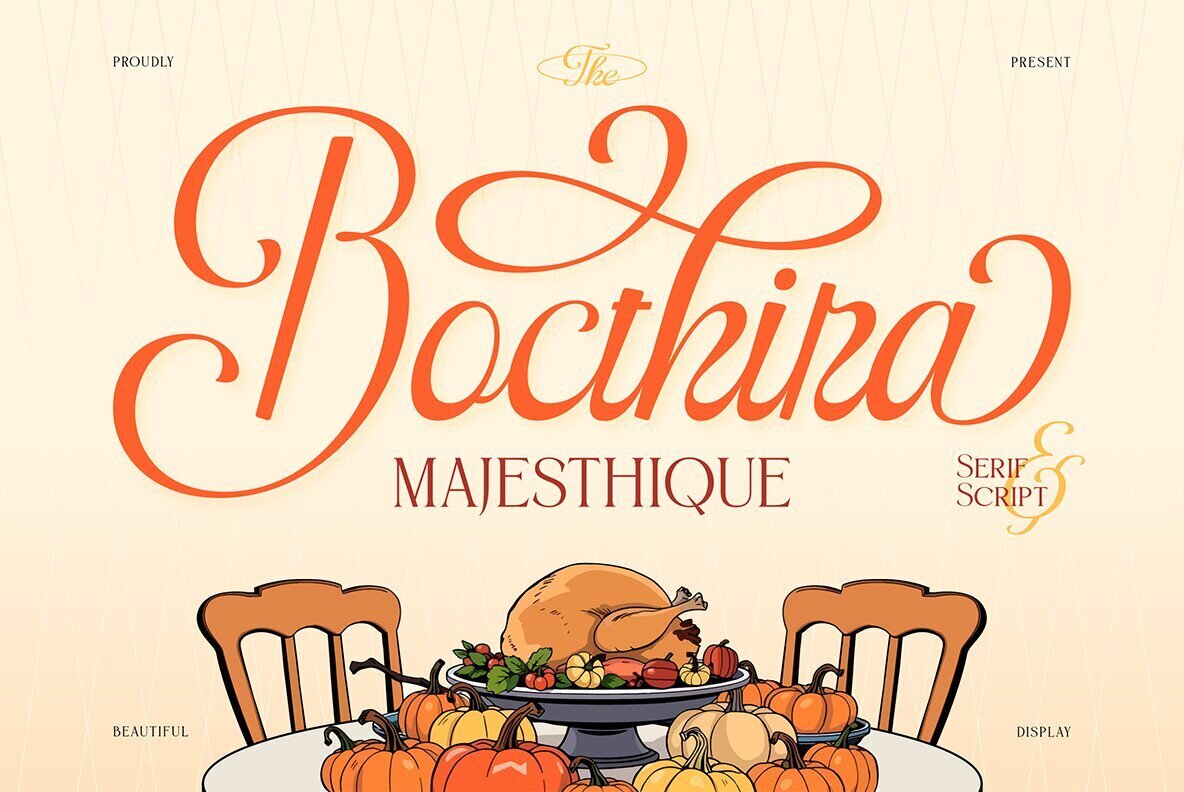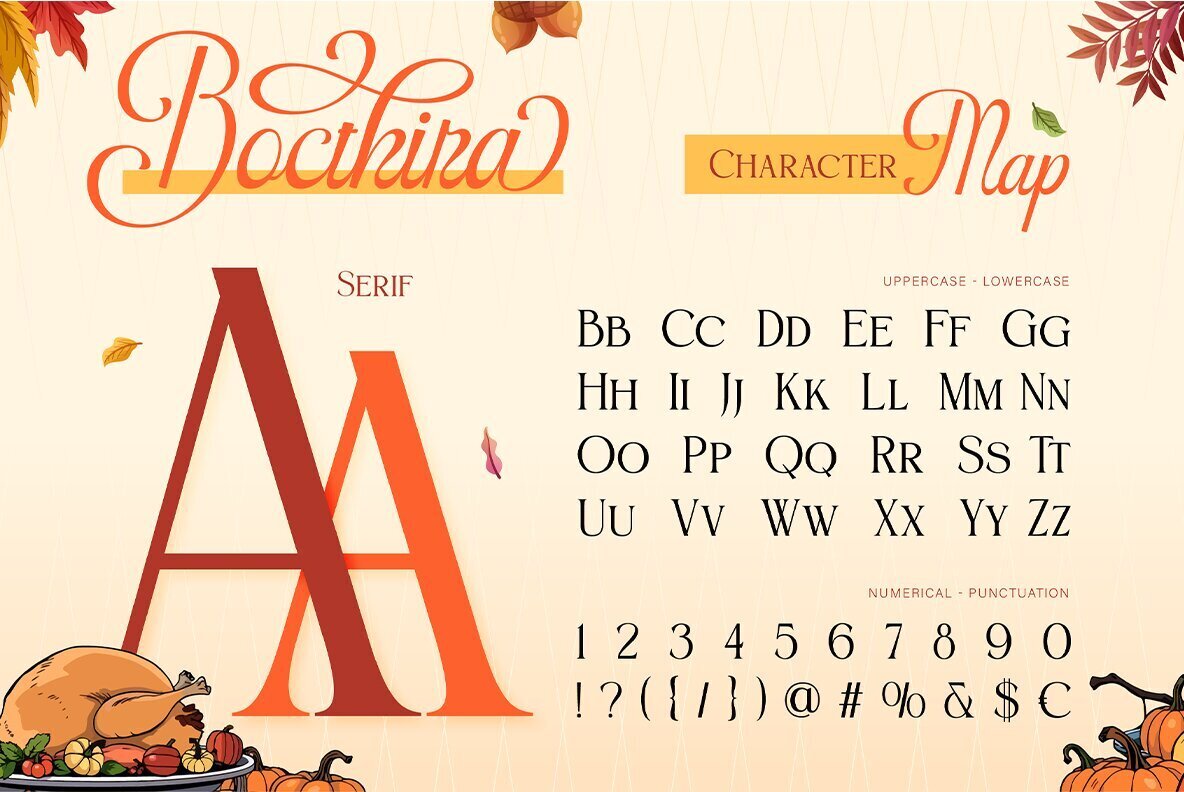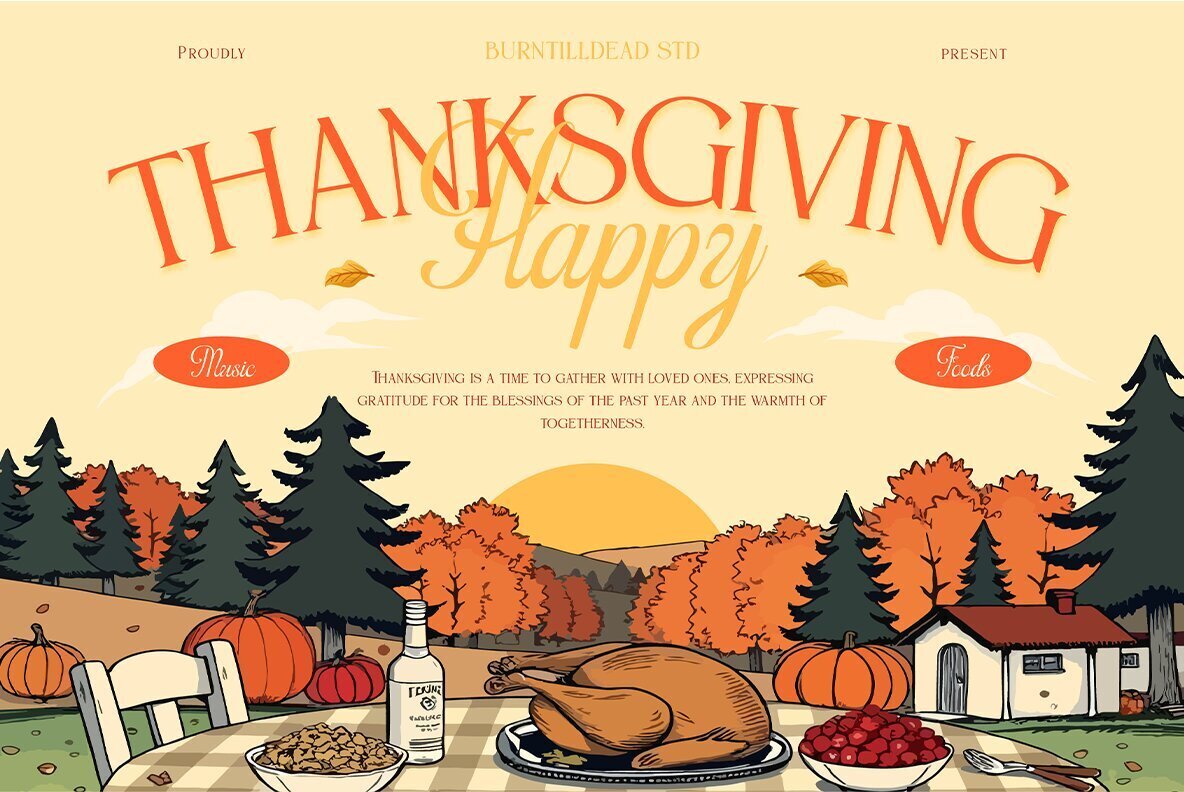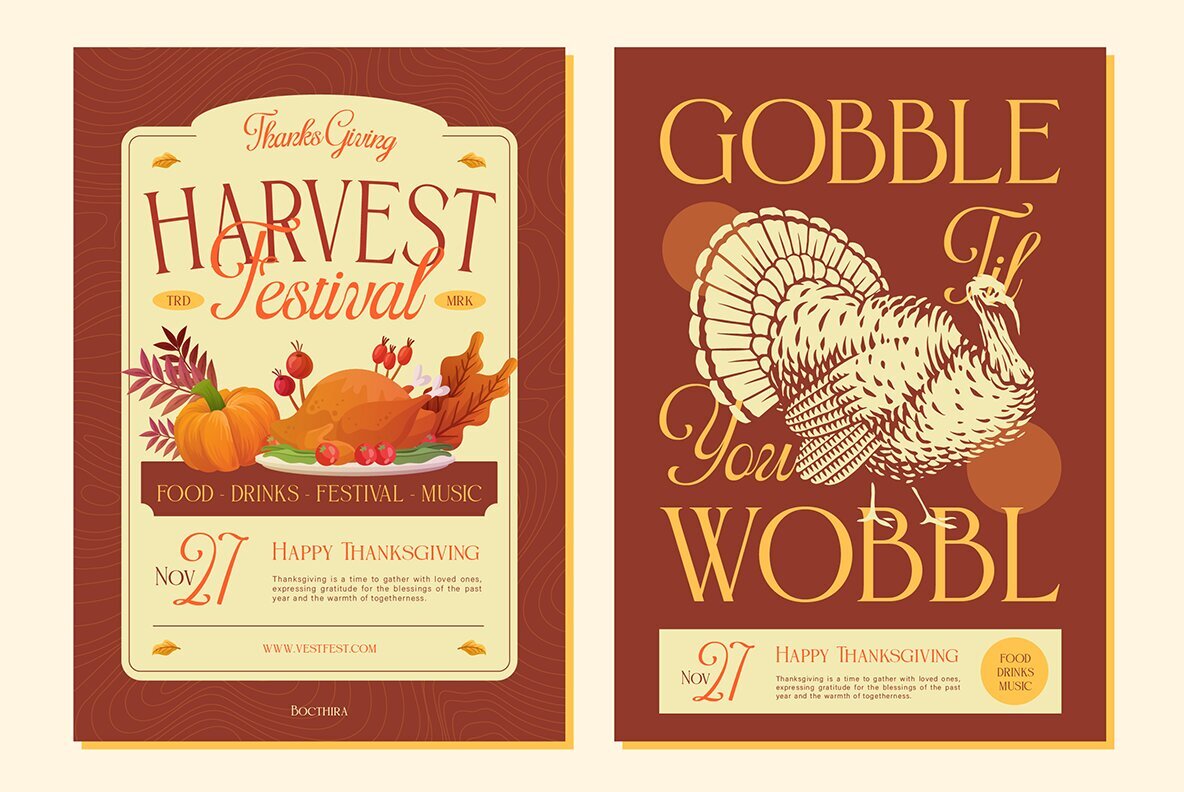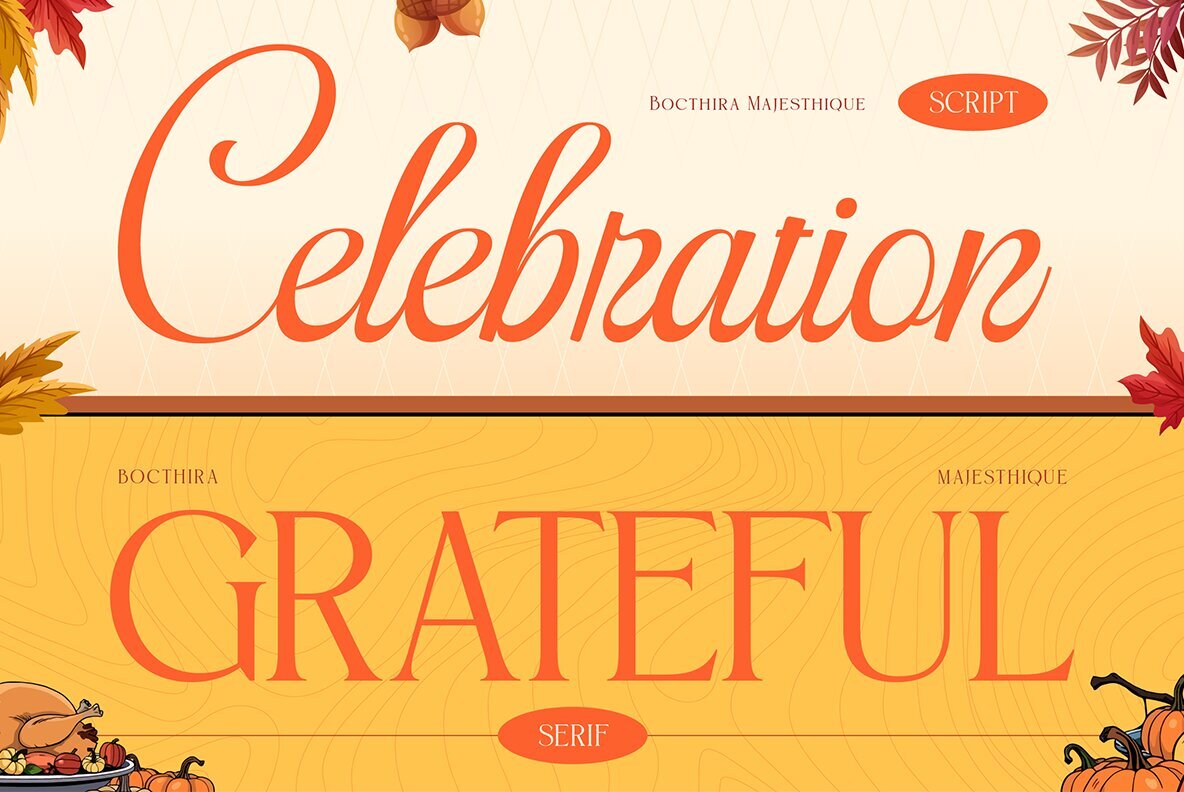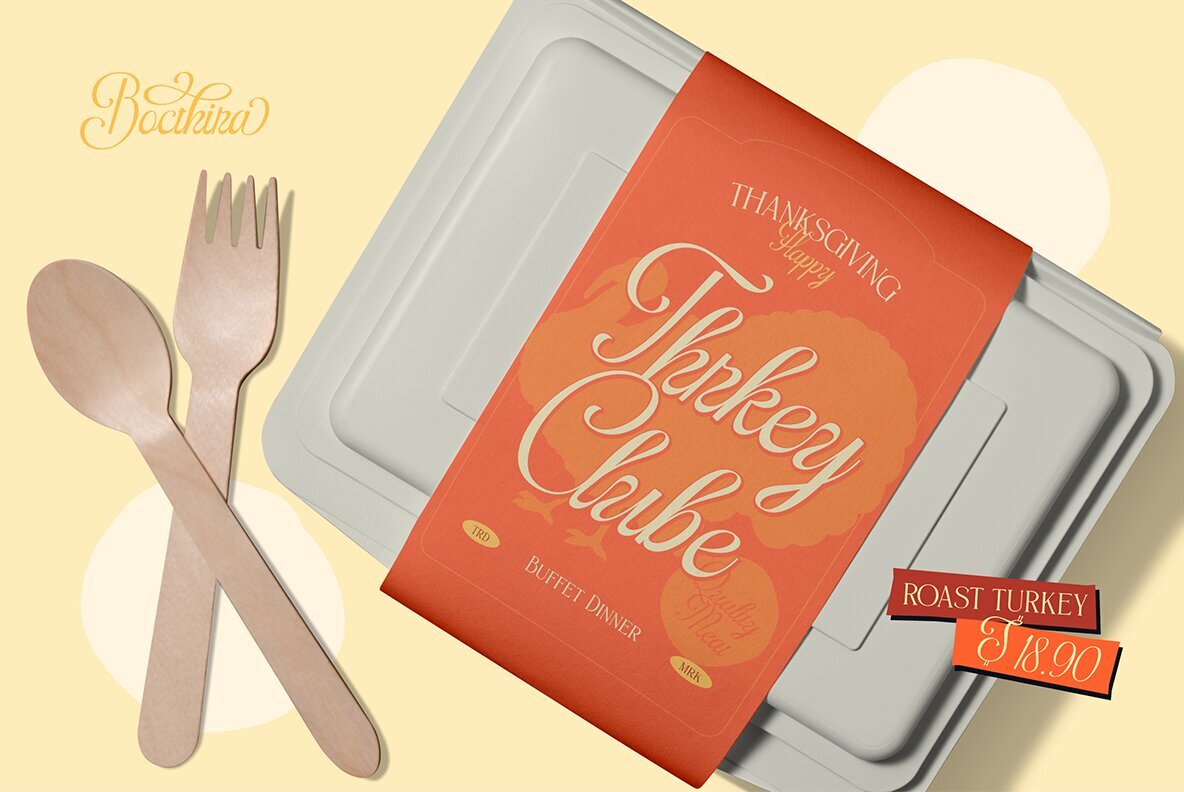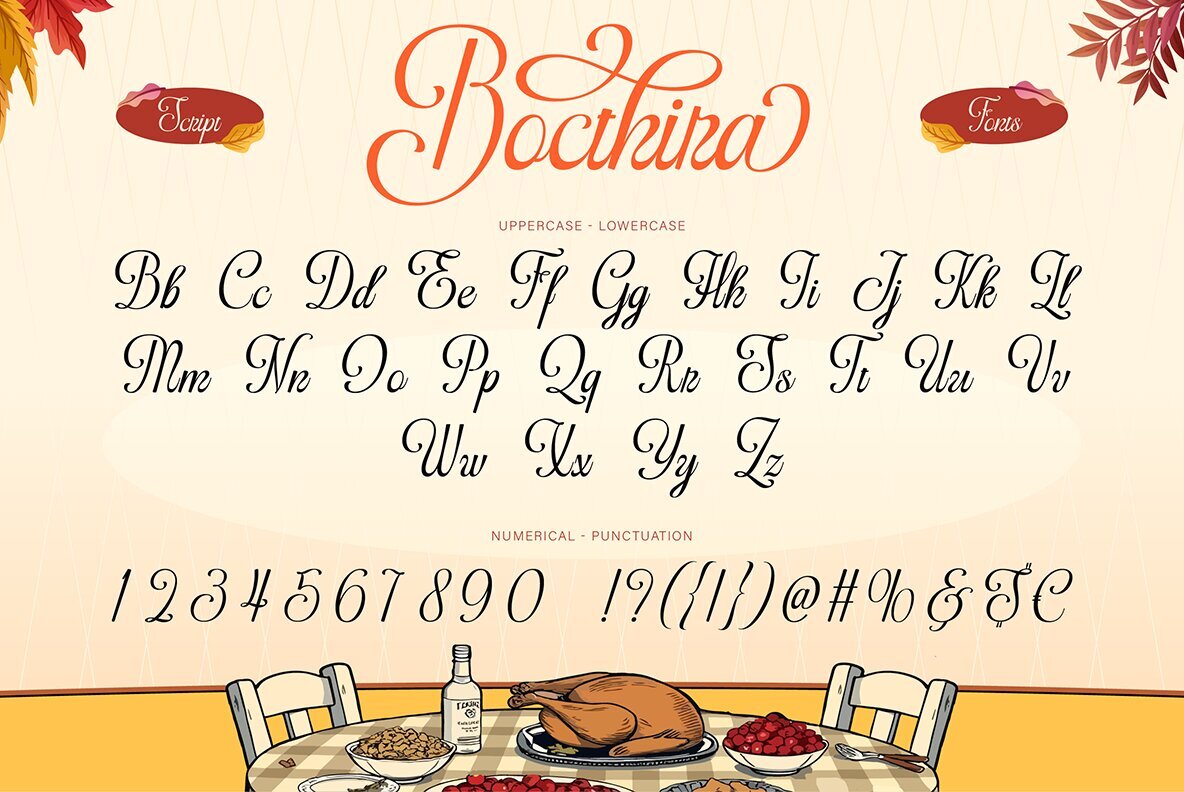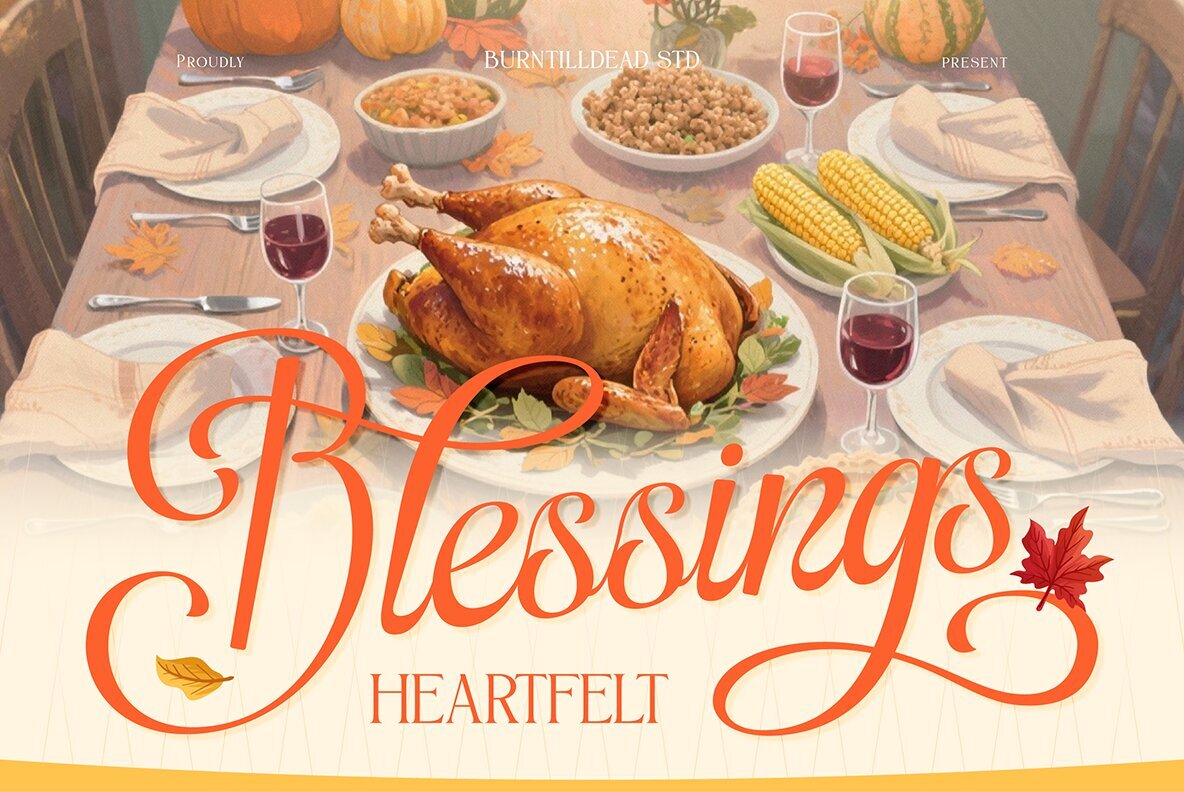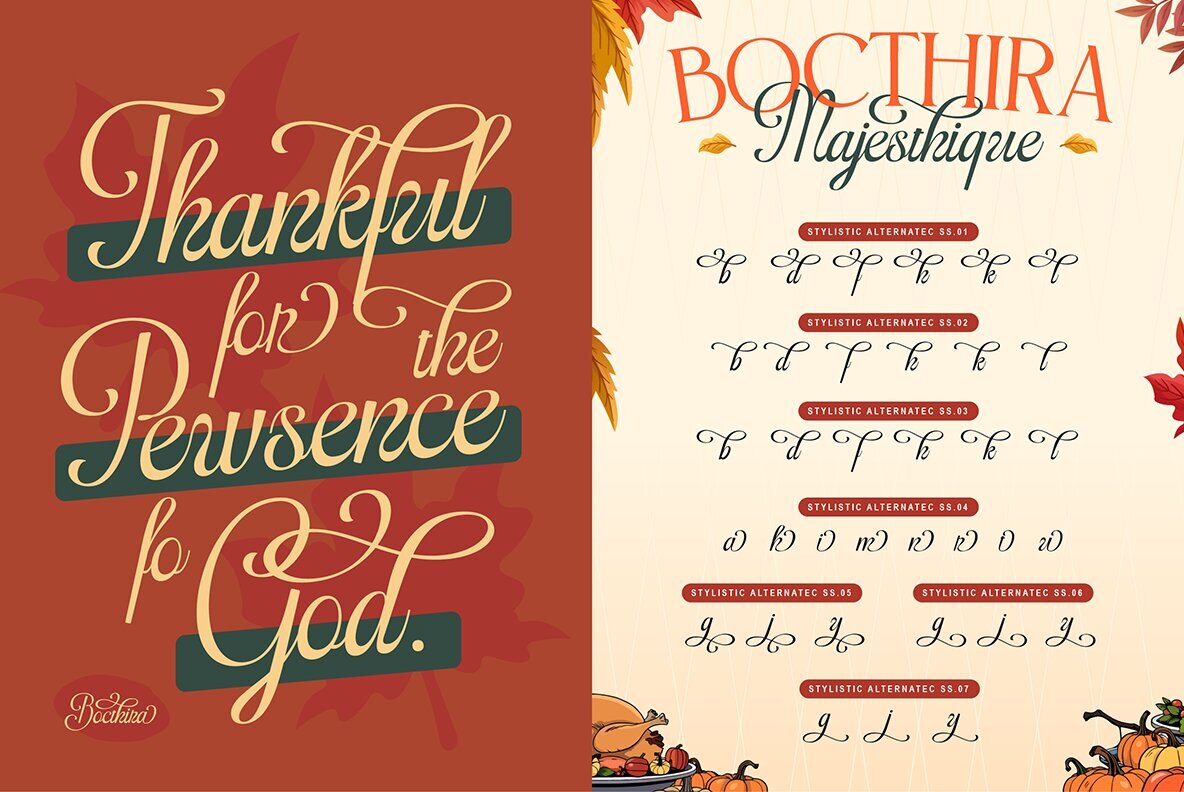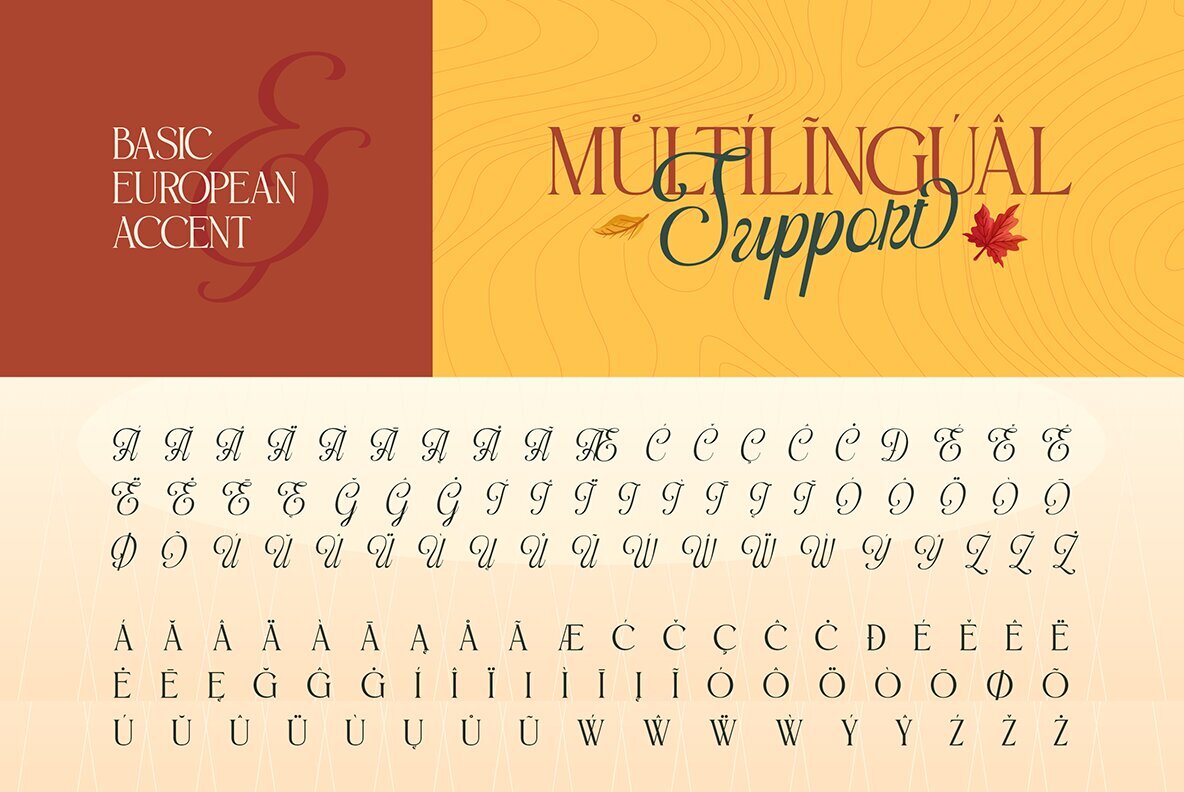
Bocthira Majesthique Font
Bocthira Majesthique Script
Bocthira Majesthique Serif
Bocthira Majesthique blends classic serif forms with a graceful script, creating a visual harmony that feels as comforting as a gathering with close friends. This font pairing balances elegance and approachability, making it ideal for holiday invitations, Thanksgiving menus, seasonal branding, and greeting cards with heartfelt messages.Warmth and Elegance in Every Letter
The serif style offers a timeless and refined touch, while the flowing script brings movement and warmth. Each character is designed to invite a sense of tradition and togetherness, ensuring your message resonates with style and sincerity.
Bocthira Majesthique is well-suited for projects that celebrate gratitude, connection, and the season’s spirit.Features